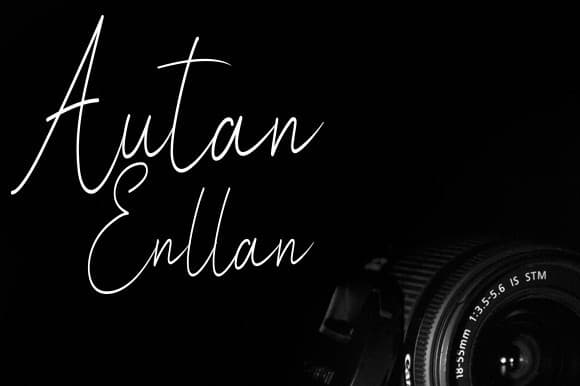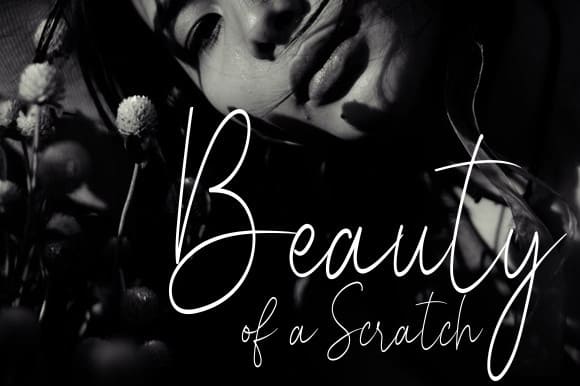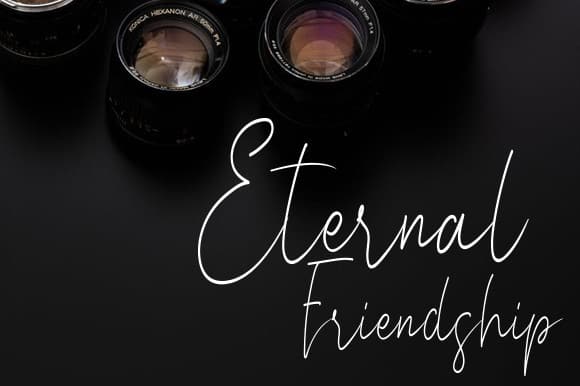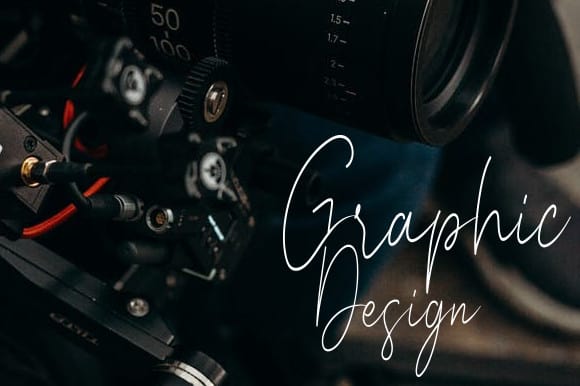
Autan Enllan Handwritten Font
Autan Enllan Handwritten Font is the latest style letters are perfect for wall displays, wedding invitations, social media post logos, advertisements, product packaging, product designs, labels, photography, watermarks, invitations, stationery, and any project that requires taste handwriting.